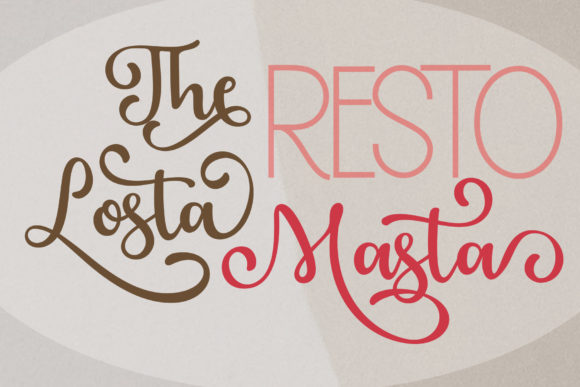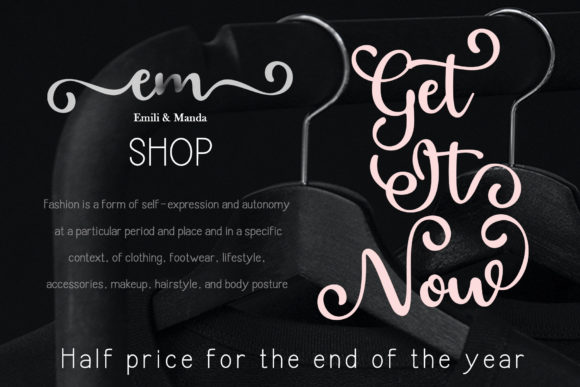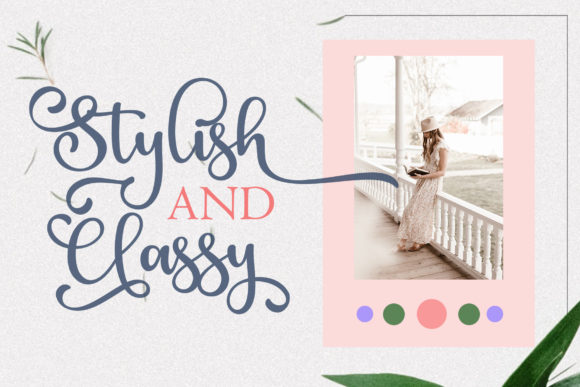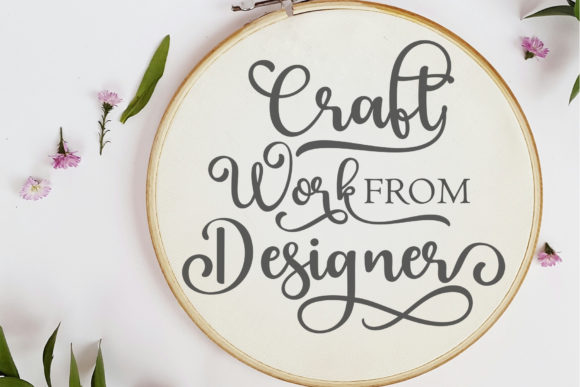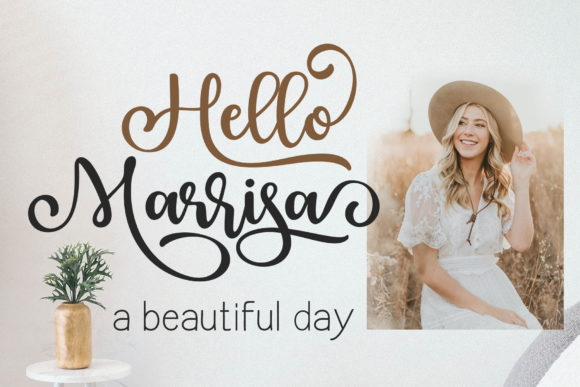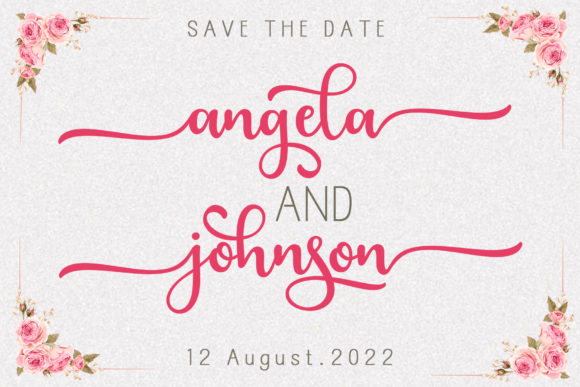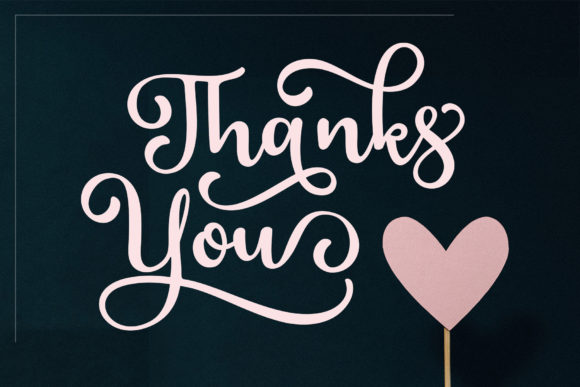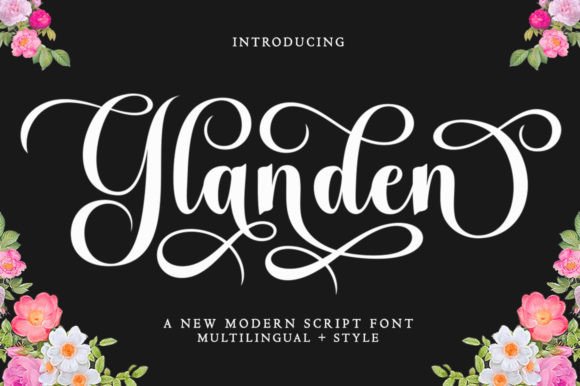
Glaster Font
About Glaster Font
Glaster is a beautiful calligraphy typeface with a distinctive style of its own. It is a bold and elegant script font. Fall in love with its incredibly versatile style and use it to create spectacular designs!